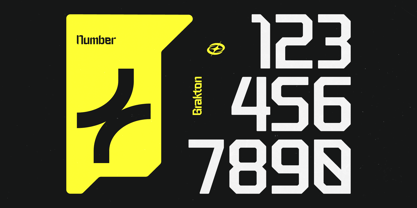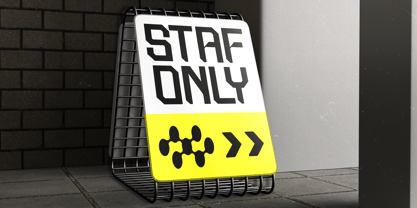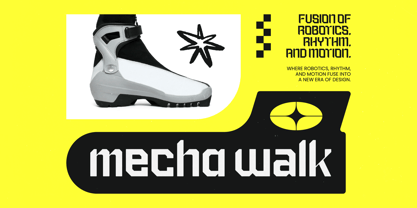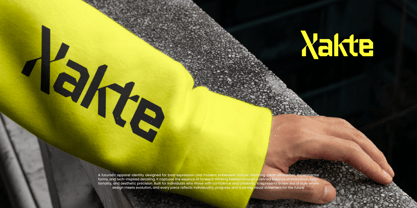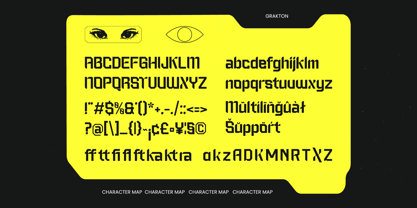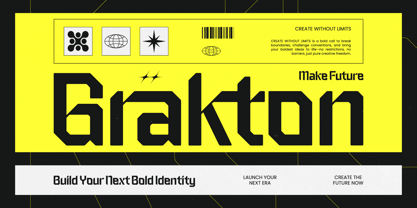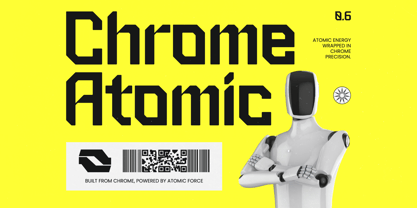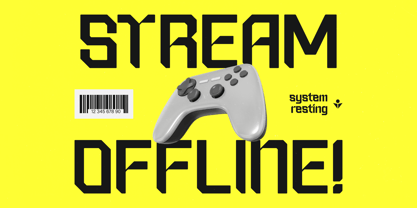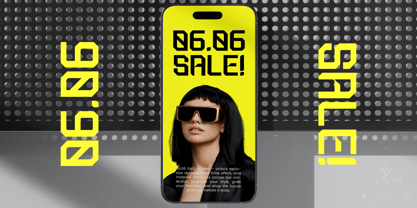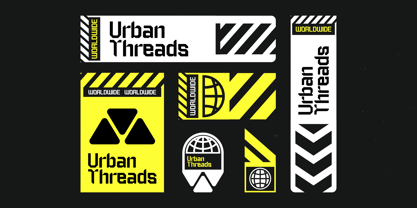
Grakton
The Grakton Font Family was designed by Heru Utama Putra and published by Timelesstype Studio. Grakton contains 2 styles and family package options. More about this family
Redefine the boundaries of contemporary typography with the commanding presence of Grakton - Modern Futuristic Sans Serif. This typeface features a bold aesthetic defined by geometric precision and sharp, angular terminals that project a sense of technological advancement. Its high-impact letterforms are engineered to stand out, making it an essential asset for designers seeking a minimalist yet powerful visual language that resonates with modern audiences.